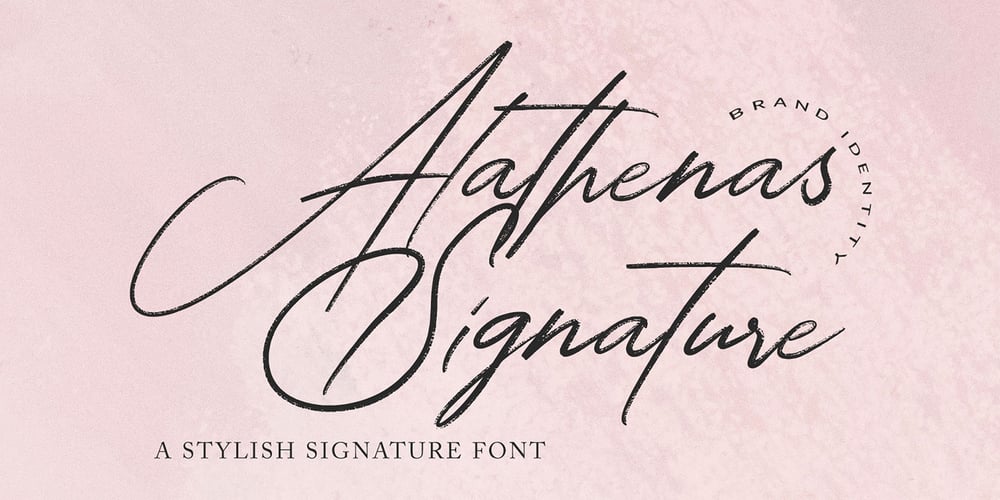
Alathenas Signature Font Family was designed by Muhammad Ilham and published by OldStudioo. Alathenas Signature contains 1 styles and family package options. We introduce our new product called Alathenas Signature Brush is a signature brush font that you can use to make a design. This is perfect for BRANDING,funny logos with this font and poster headline, magazines, book titles, business cards, beautiful fashion designs, advertisements, product designs, wedding invitation, signature or handwritten quote.The added fonts will be completely new releases with full character sets in .OTF, .TTF formats. Alathenas Signature Brush is PUA encoded so you can access extra characters in any graphic design app even without OpenType support.Alathenas Signature Brush also includes full set of uppercase and lowercase letters, multilingual symbols, numerals, punctuation. The font has brush wet ink texture, so would be perfect for all types of printing techniques you can do embroidery, gold foil etc.Features you get :Latin A -Z and a – zNumberInternational SymbolInternational glyphsAlternatifLigatureLanguages supported: Breton, Catalan, Czech, Danish, Estonian,French, German, Hungarian, Icelandic, Italian, Romanian, Scottish Gaelic, Slovak, Latvian, Lithuanian, Norwegian, English, Finnish, Polish, Portuguese, Slovenian, Spanish, Swedish, Turkish, Welsh. Basically, all european languages that are based on latin alphabet.THANK YOU